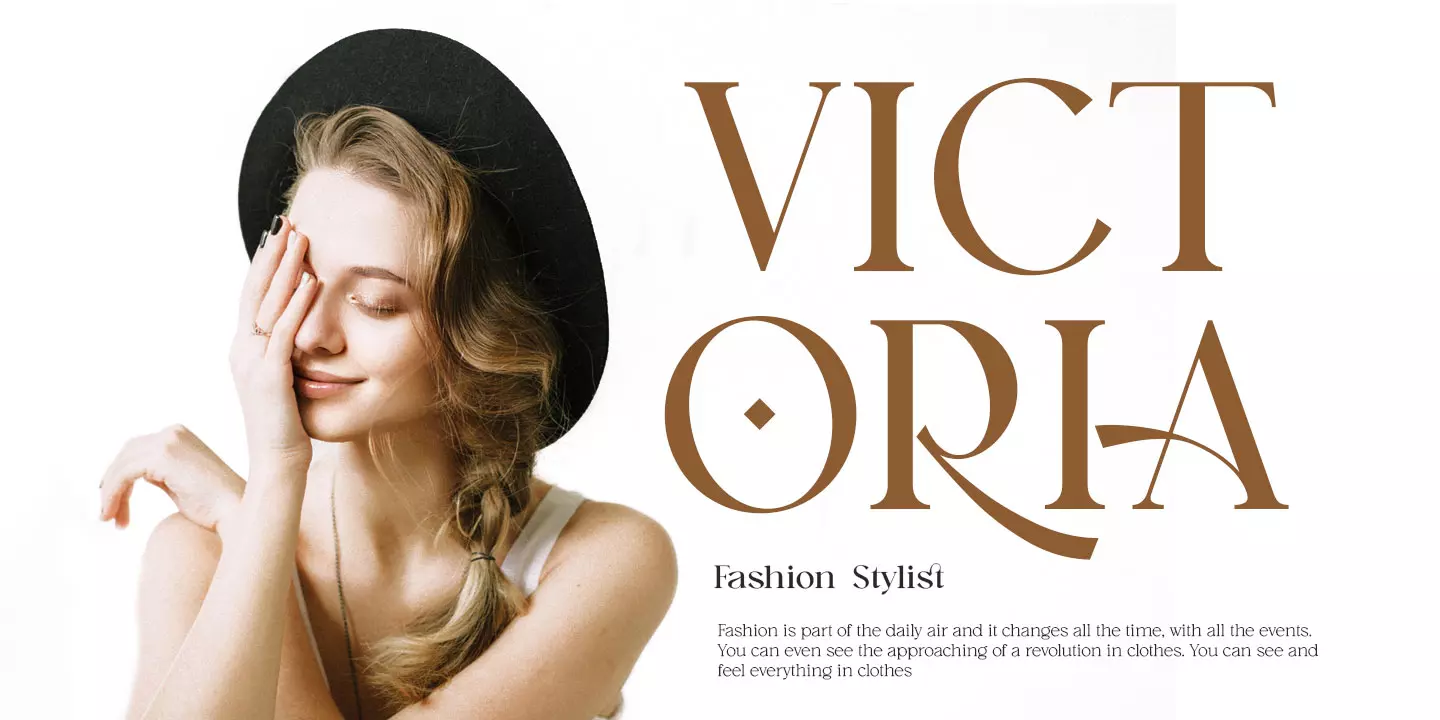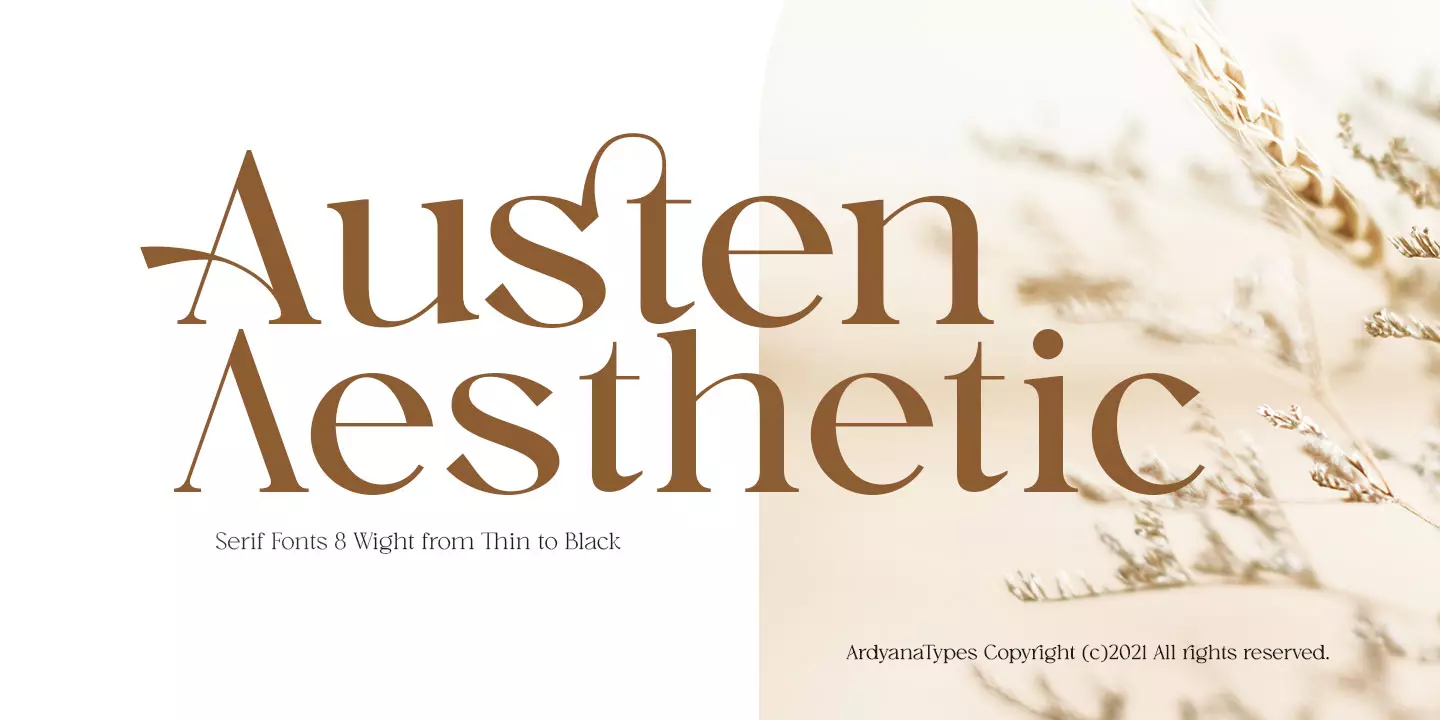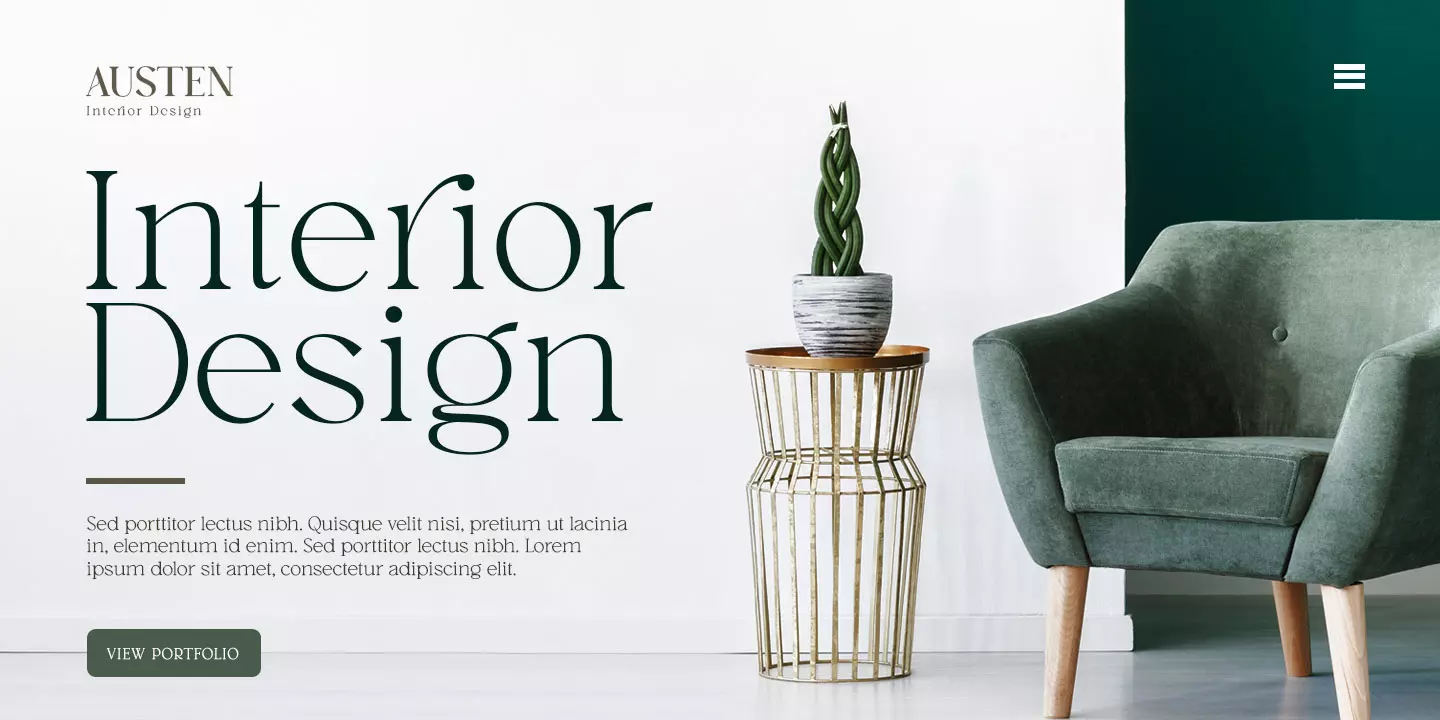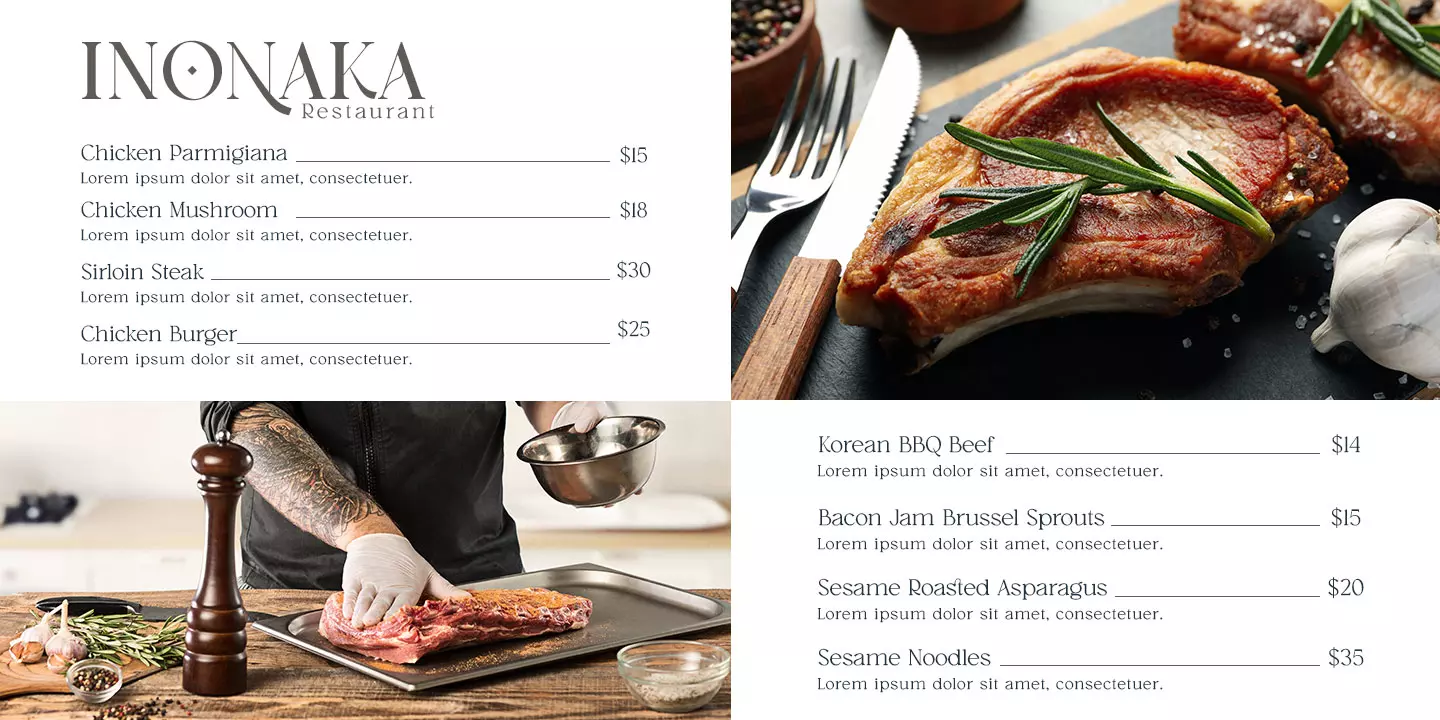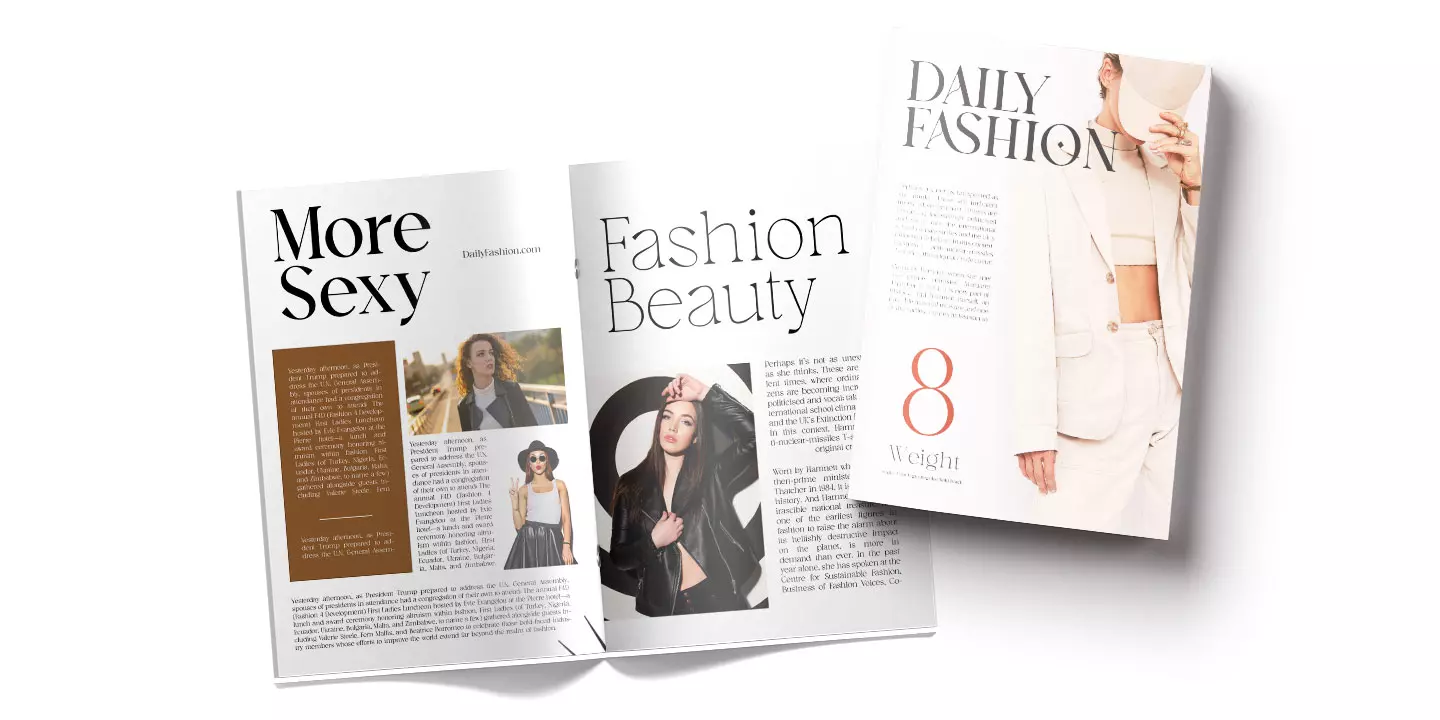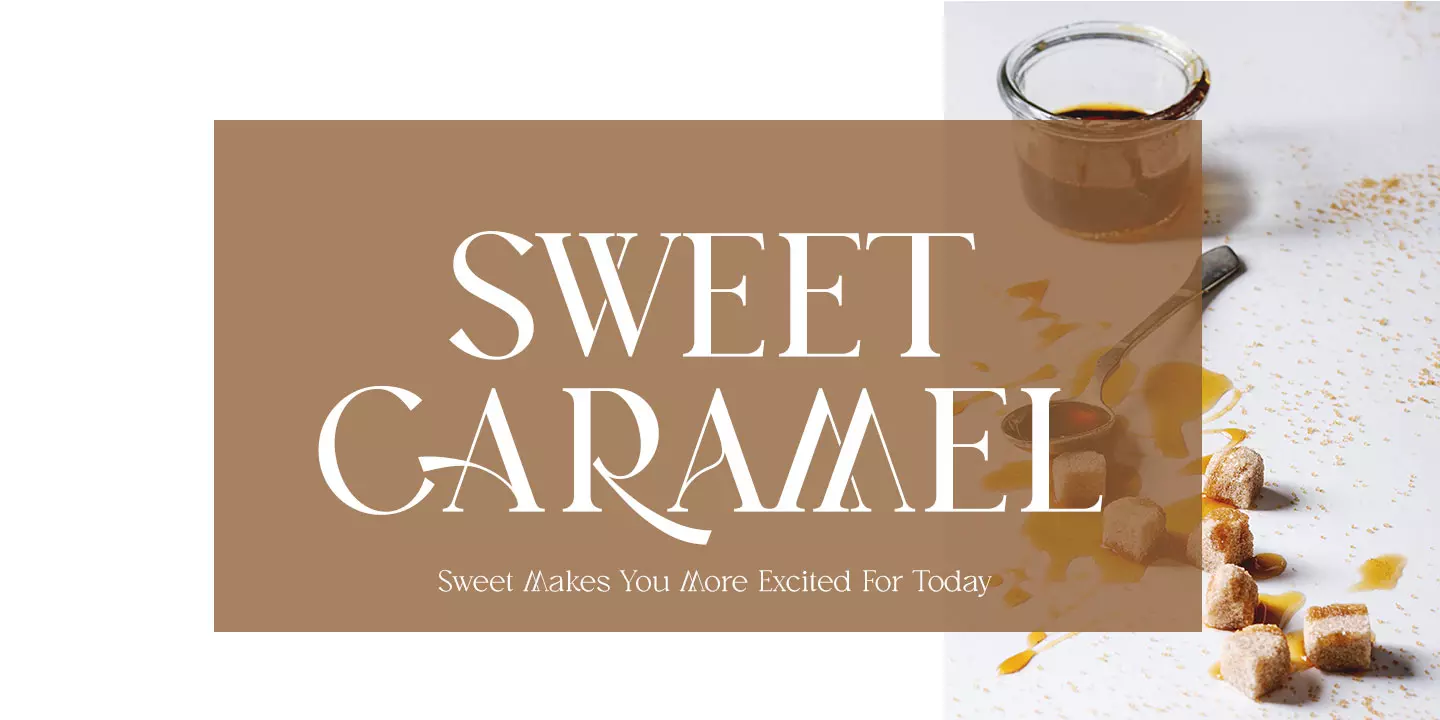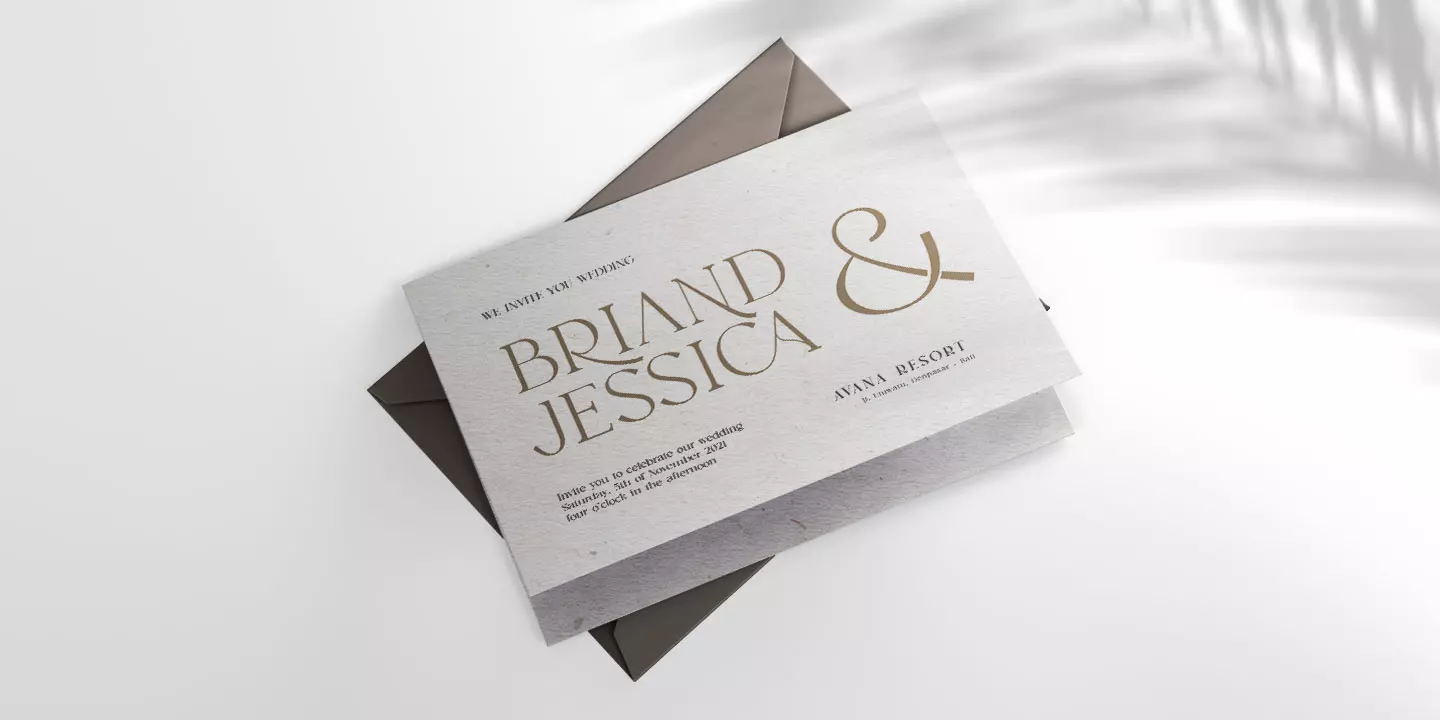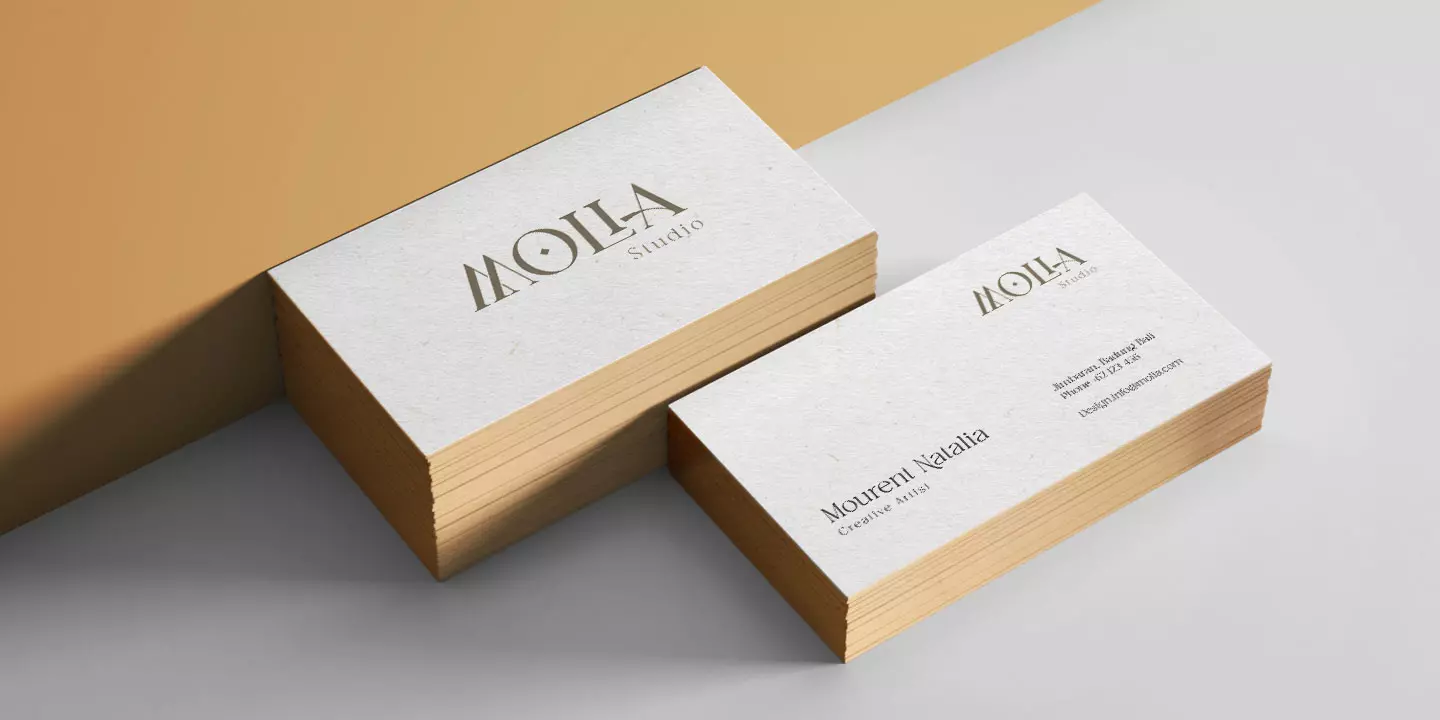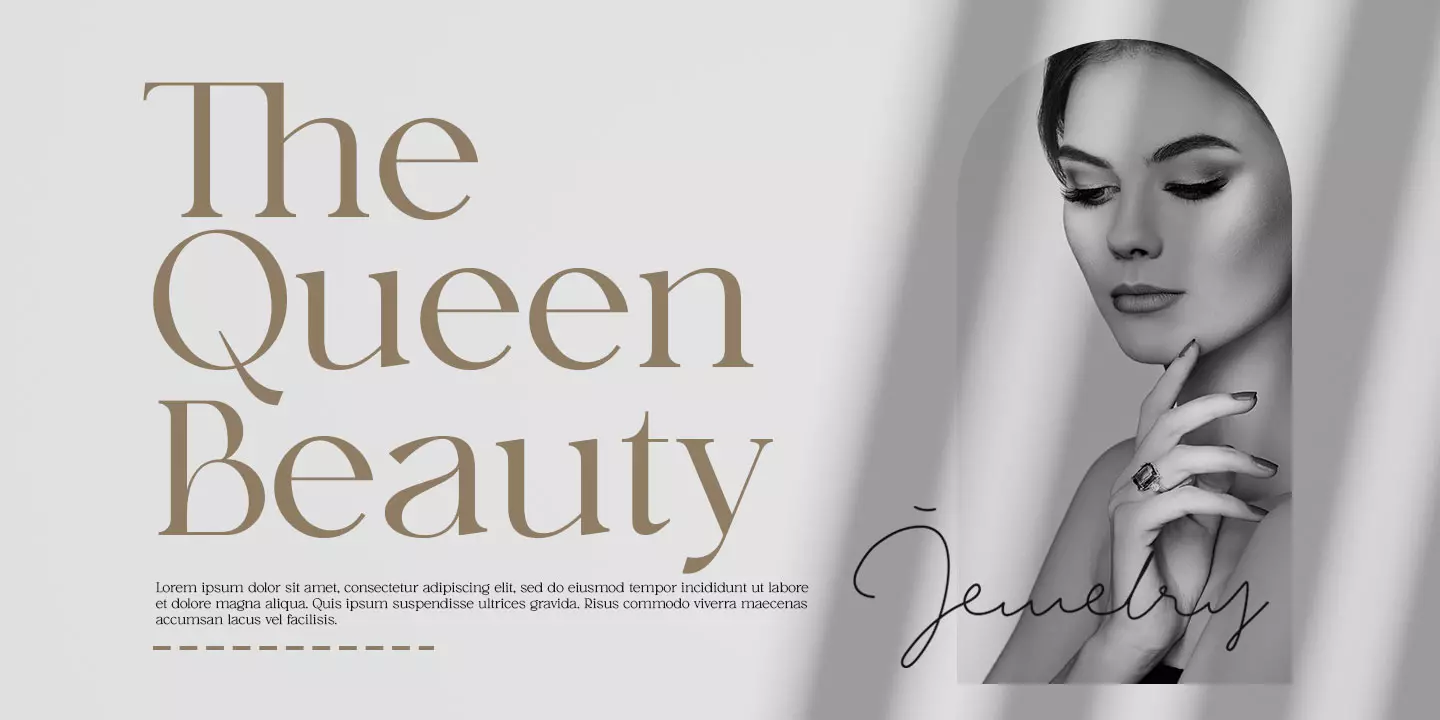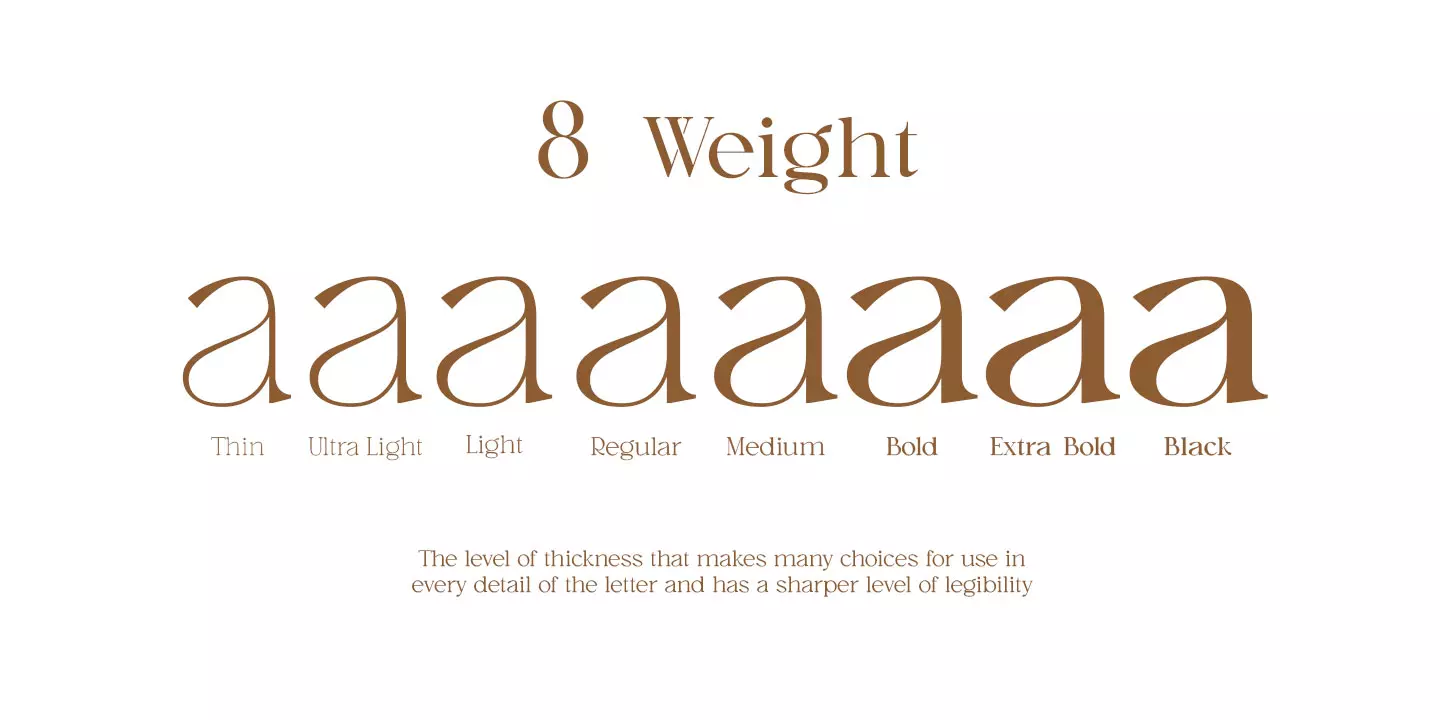
Austen
8 Styles
Austen comes with an aesthetic style with a modern and elegant serif-type tagline appearance. This font comes with 8 thickness levels, from thin to black to suit your needs. Austen is also equipped with modern professional characteristics that can present an elegant and attractive identity for your company or project for business purposes. Pairs well with modern serifs and scripts as pictured, or stands firm as a title and brand representative for an elegant look.
Austen also comes with multiple languages, making it easy to use for any country and language use, and also comes with alternative Ligatures and stylistics to make your designs more appealing.
Austen is suitable for branding projects and various design purposes such as business cards, name tags, uniforms as a brand enhancement. advertising, posters, invitations, branding, logos, magazines, merchandise, presentations, etc.
• AS AS
• CA CA
• GA GA
• LI LI
• Th Th
• fb fb
• fh fh
• fj fj
• fk fk
• fl fl
• ri ri